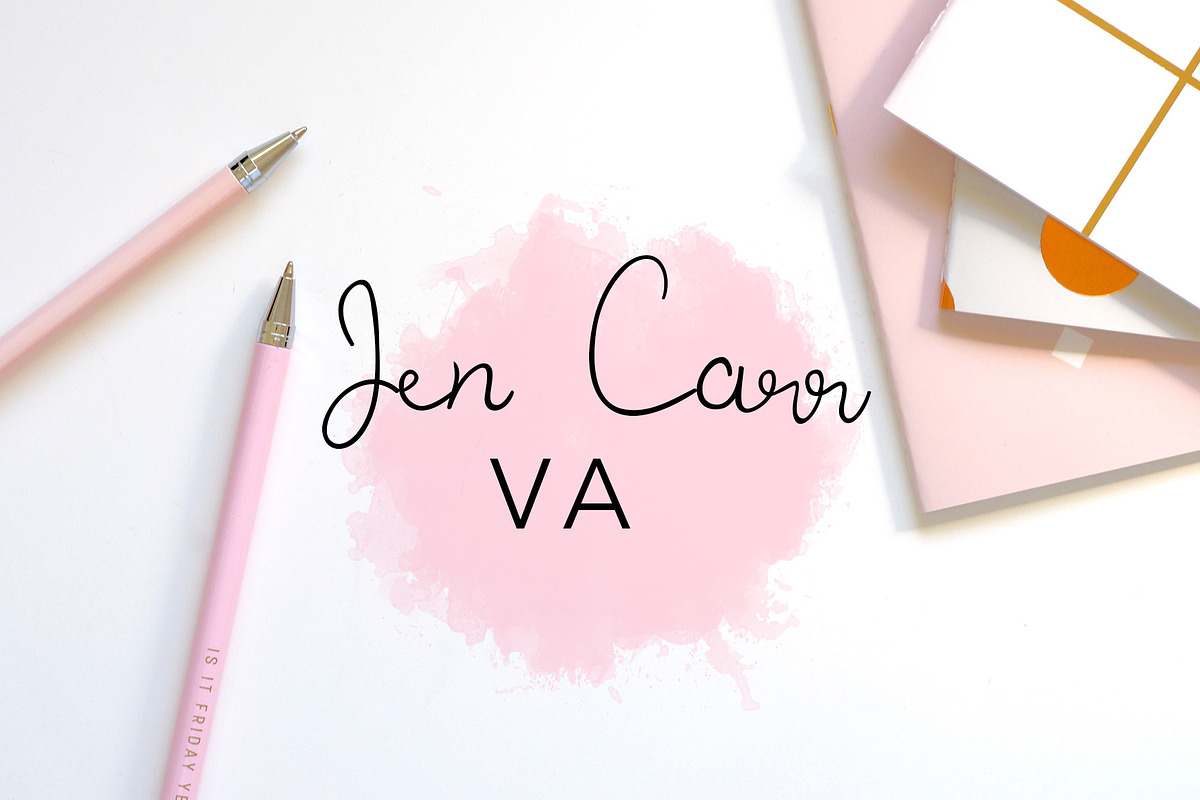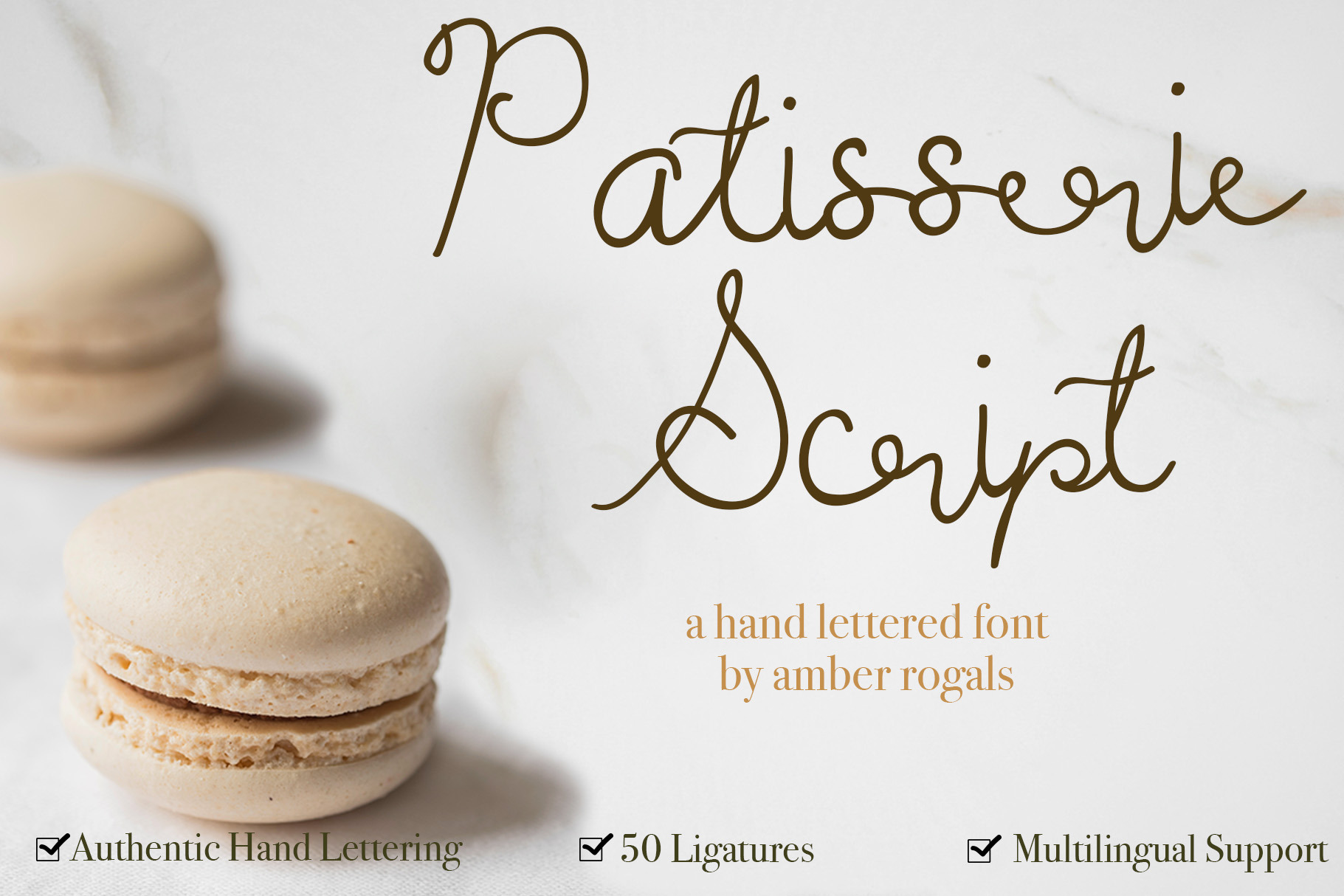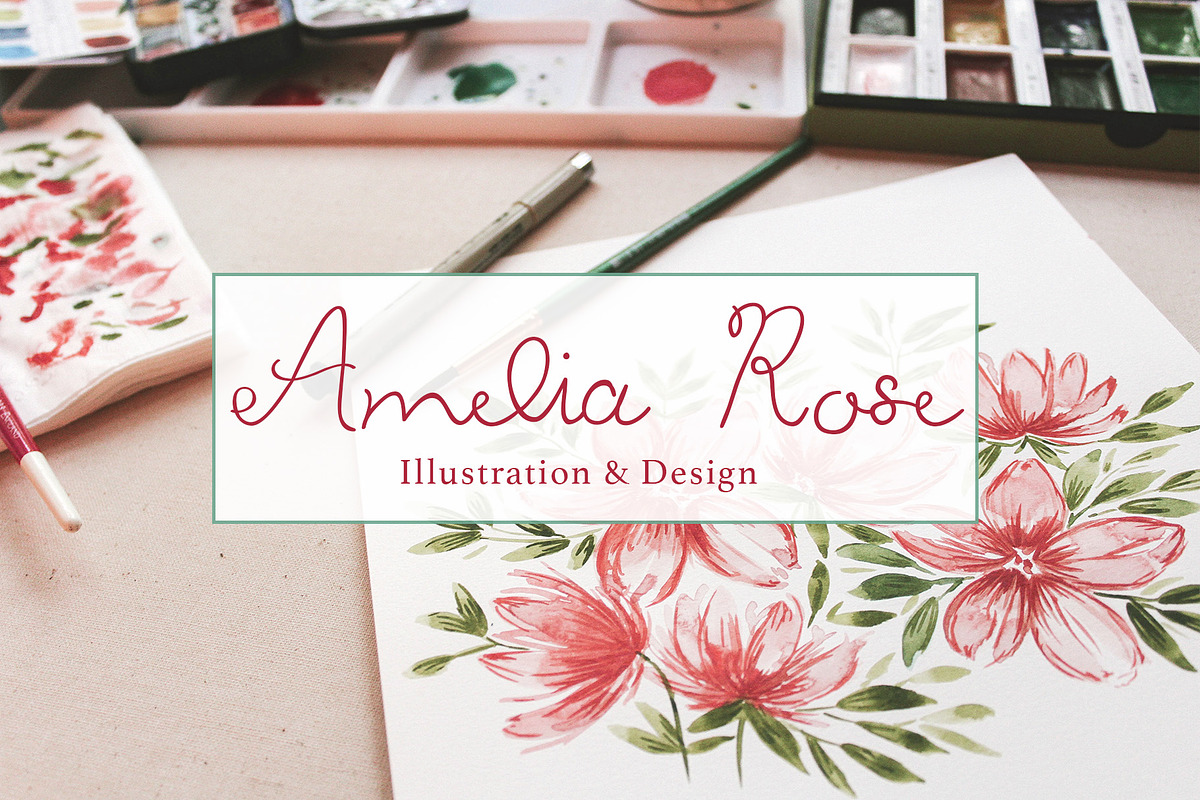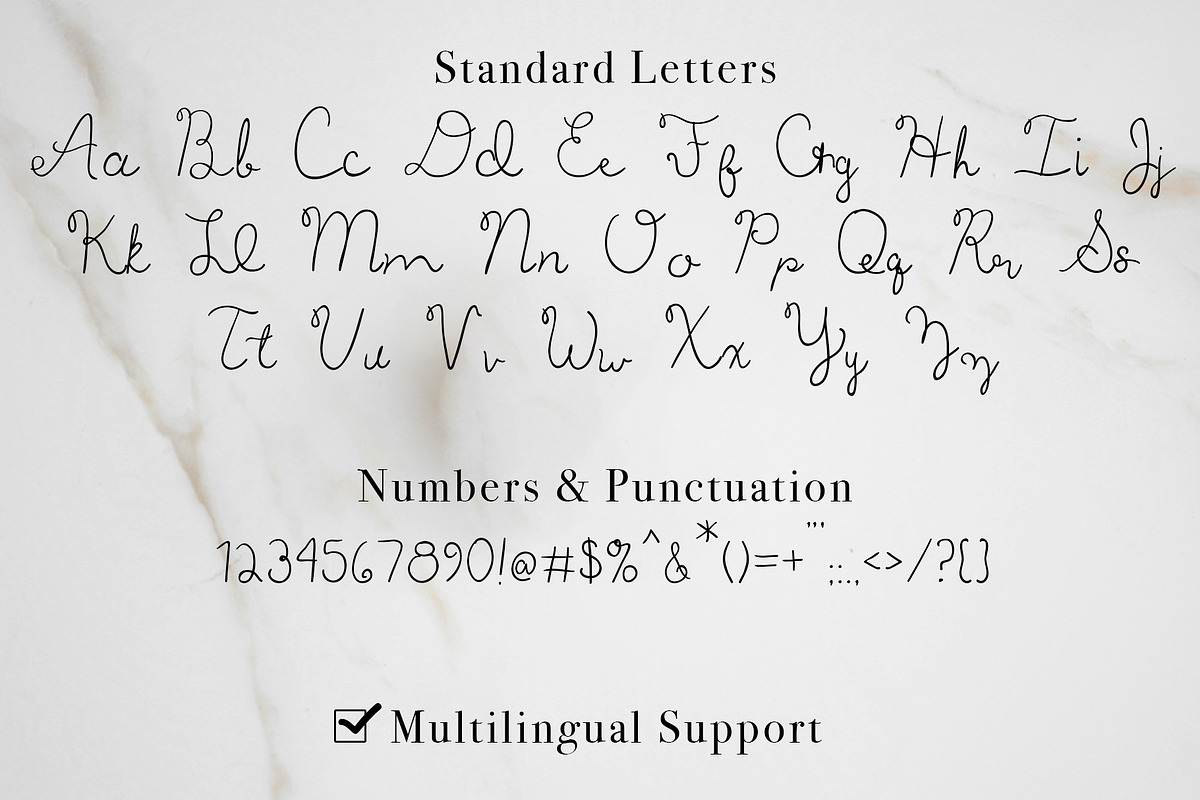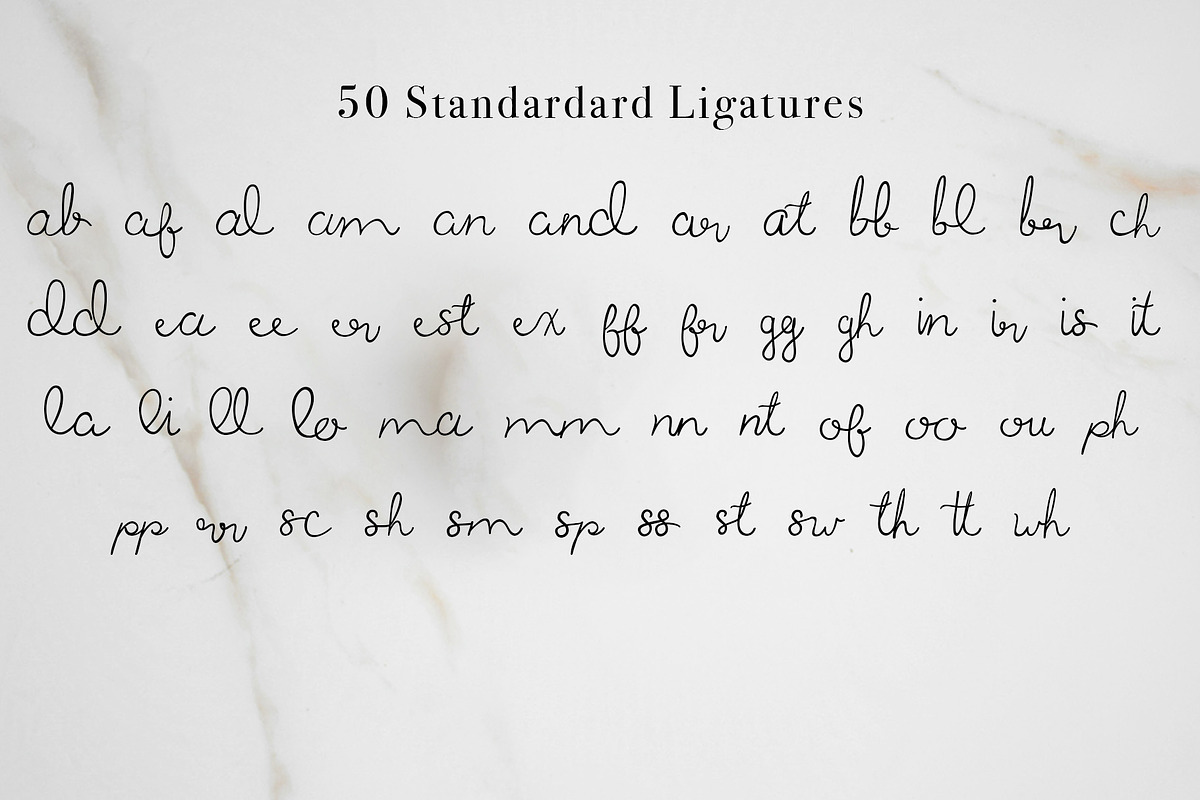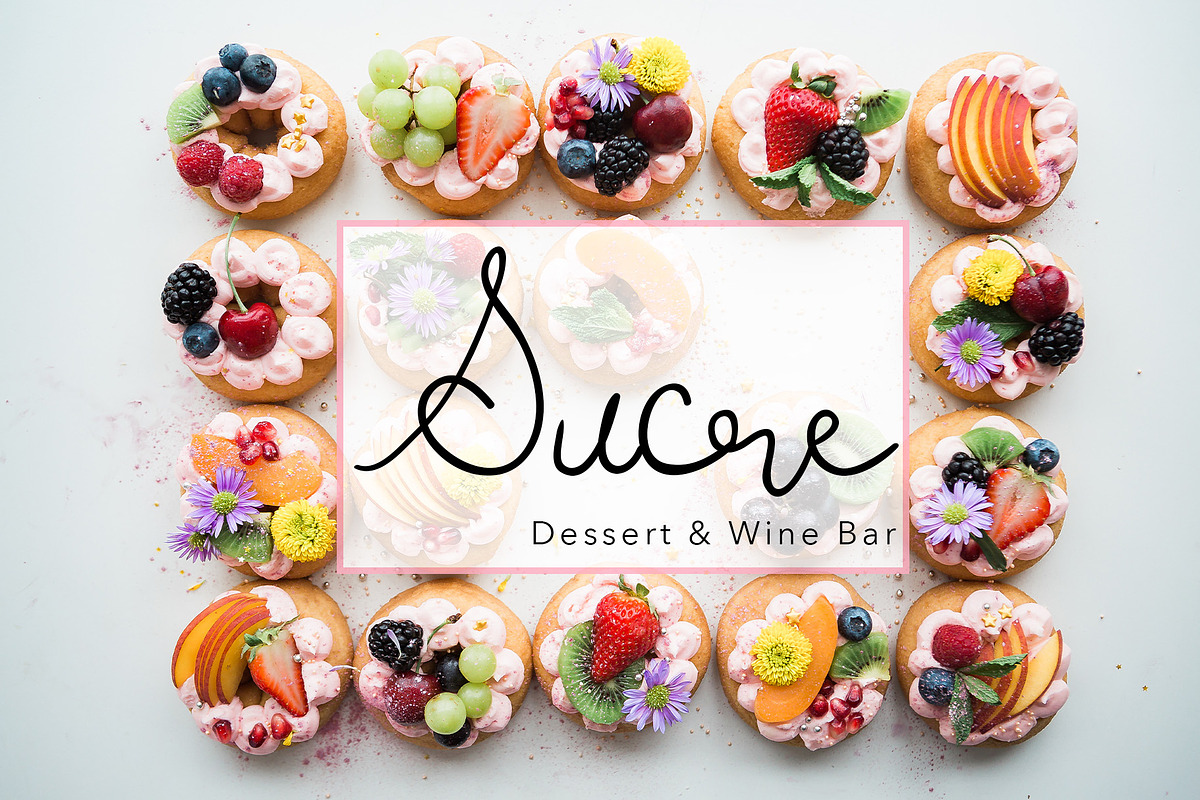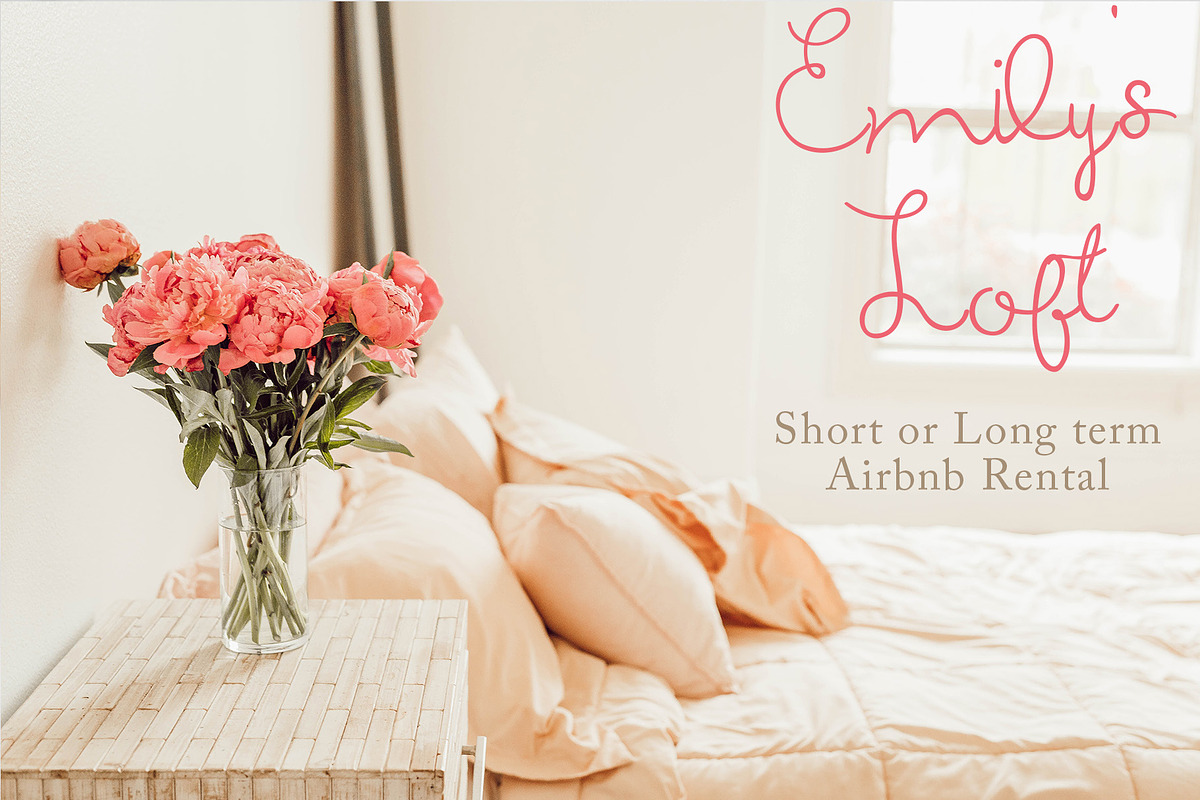
Patisserie Script - A Sweet Font
Patisserie Script is a lovely and coquettish font inspired by a sweet little Parisian cafe. It's soft and relaxed and a little bit more whimsical and romantic than the more common quick-stroke brush script fonts that you see. This font has large, fun swoops and includes 50 gorgeous standard ligatures for a very authentic handwritten feel.
Patisserie Script is perfect for logo and branding projects, printed quotes, gifts and products (like tee shirts and mugs!), social media, banners, or invites and announcements.